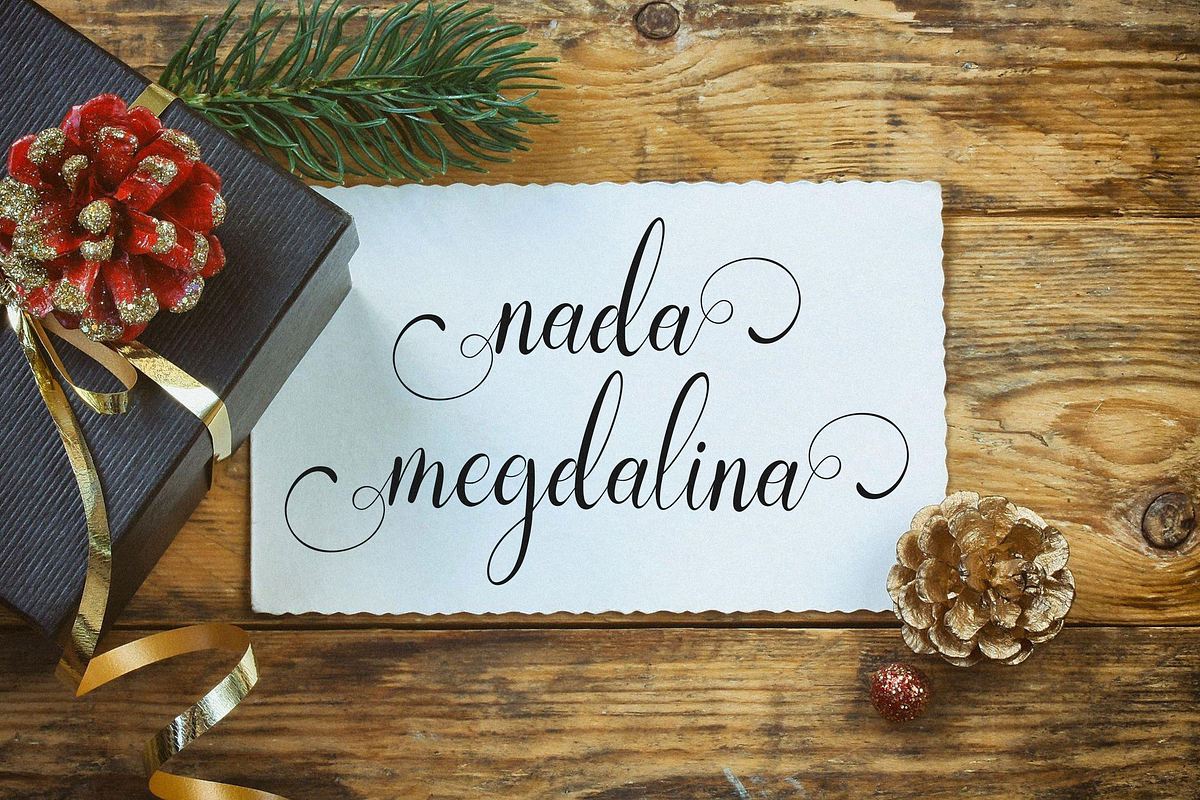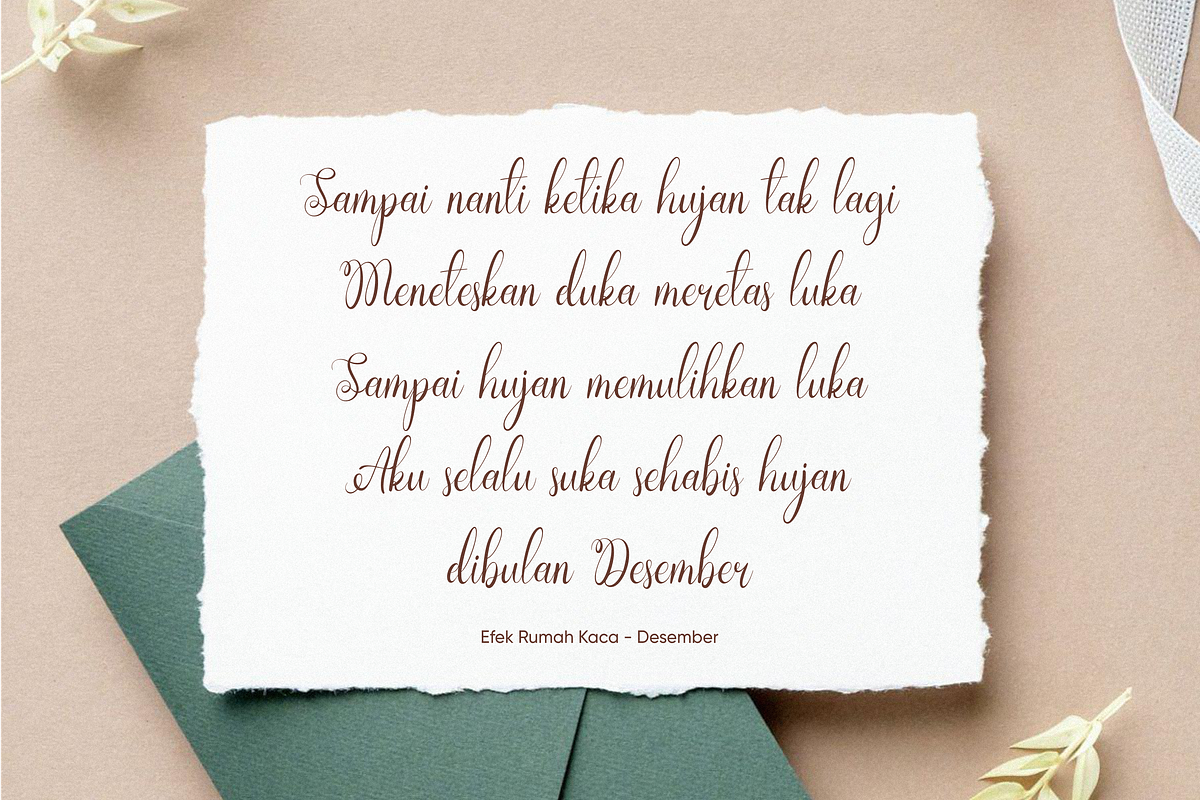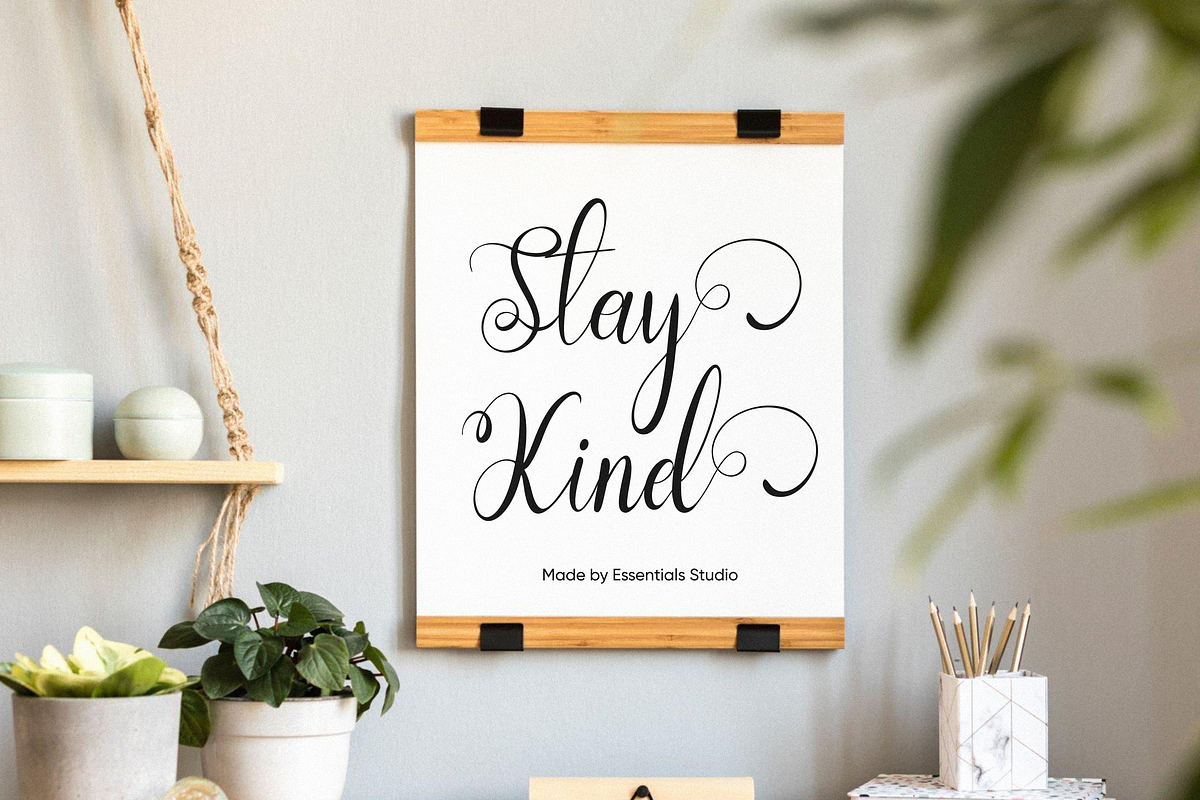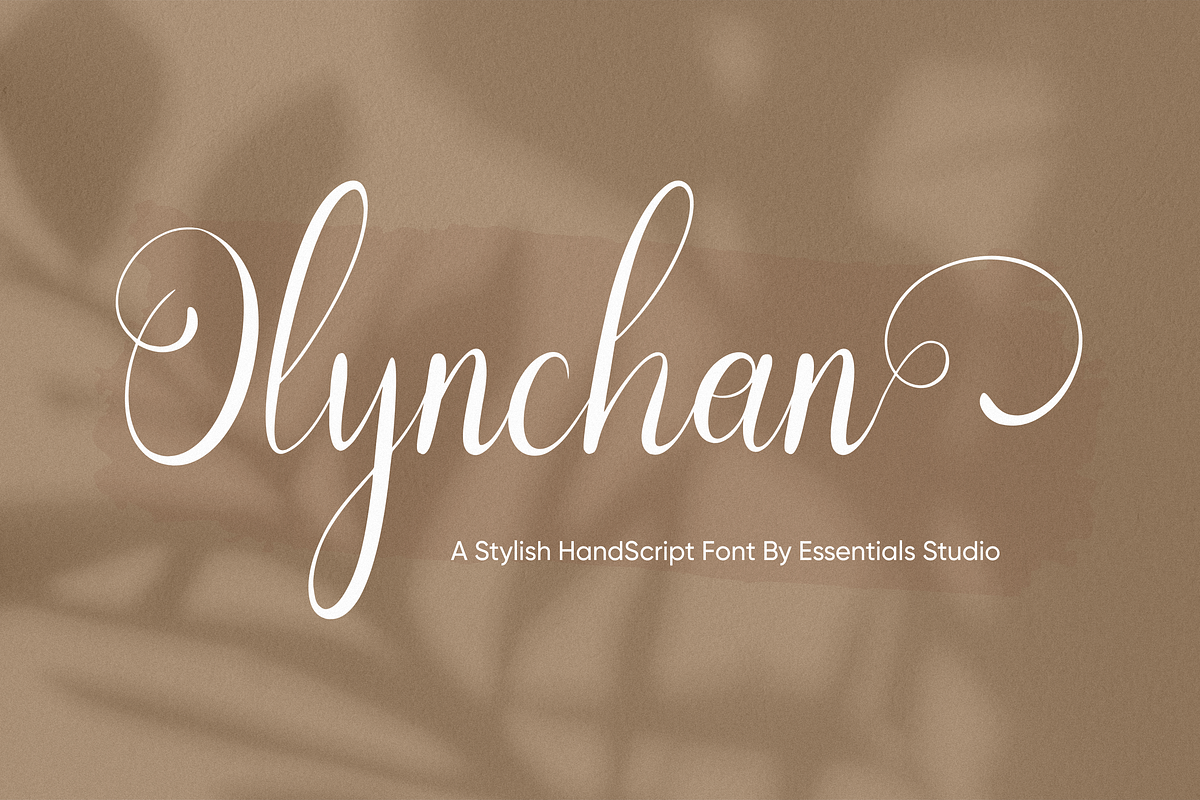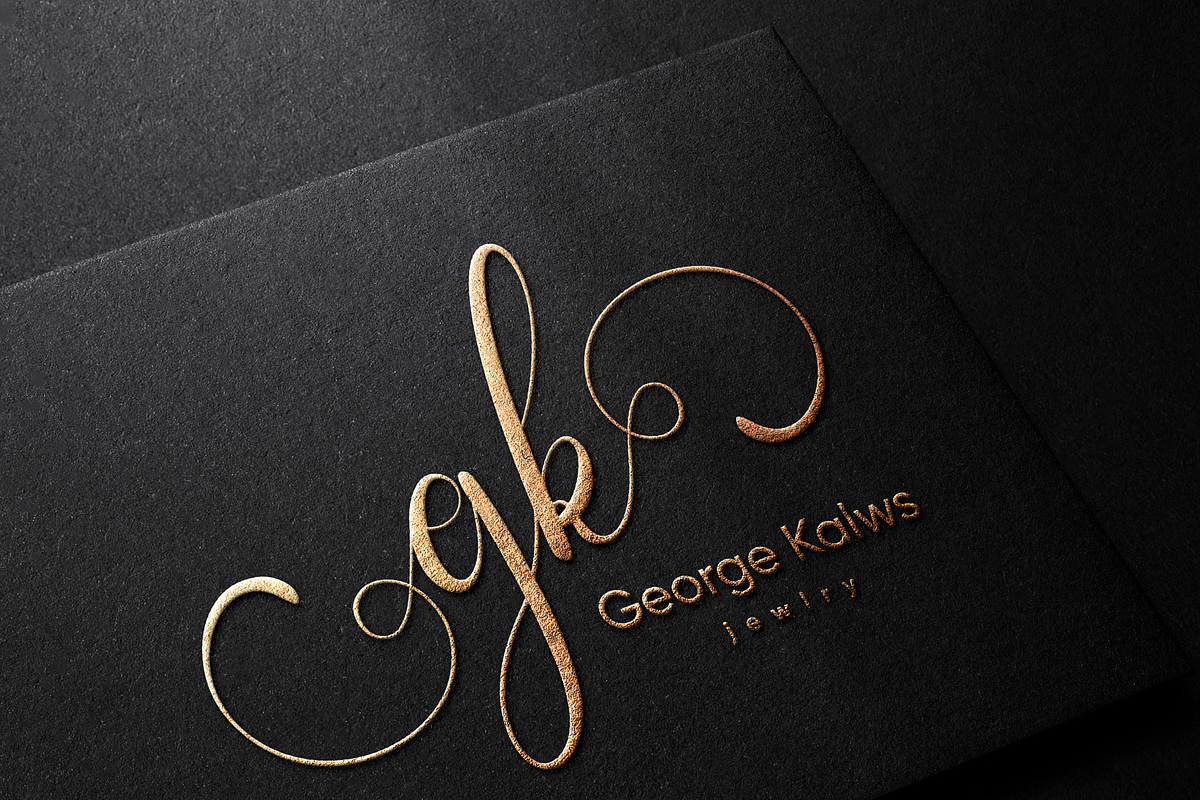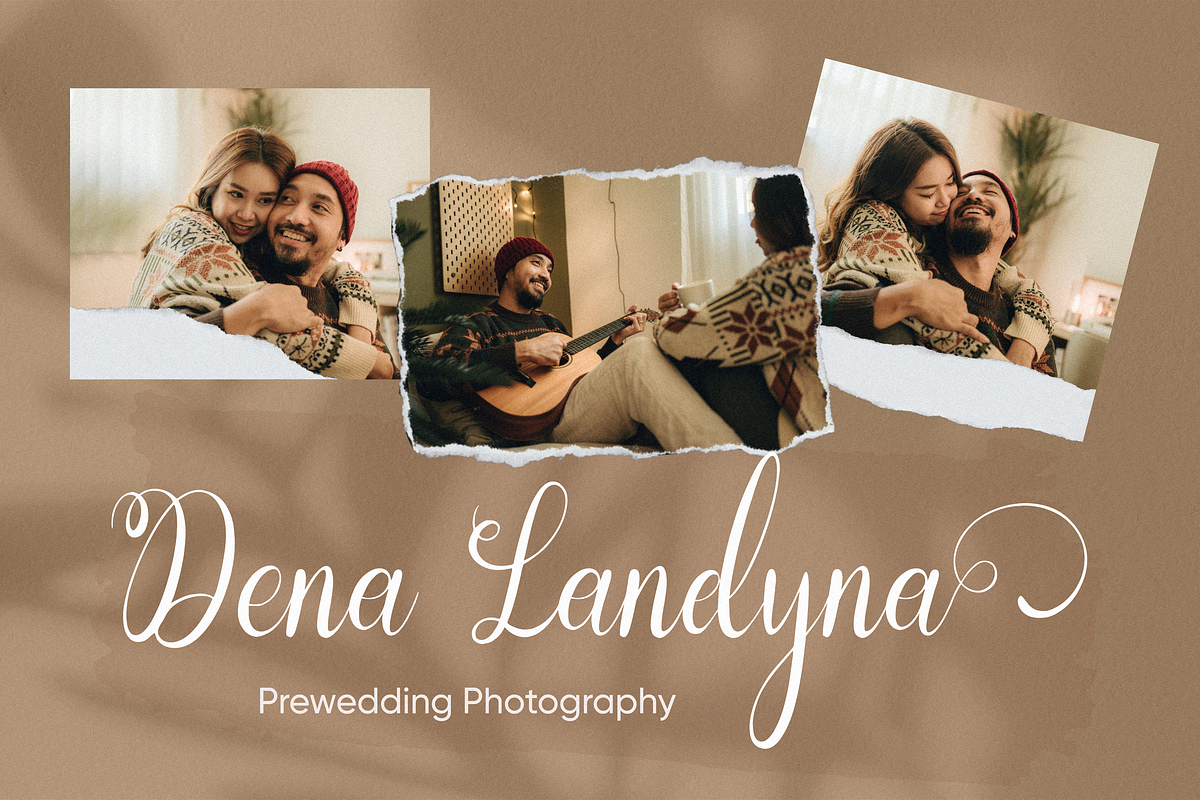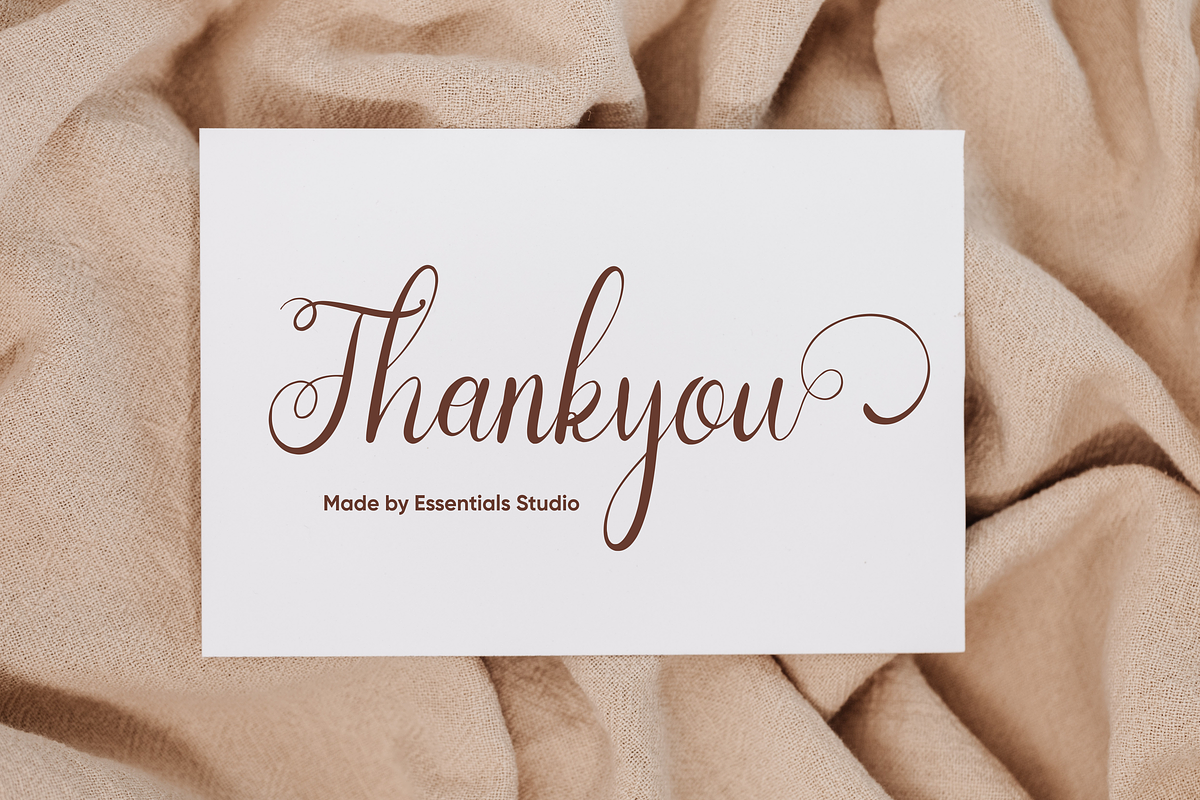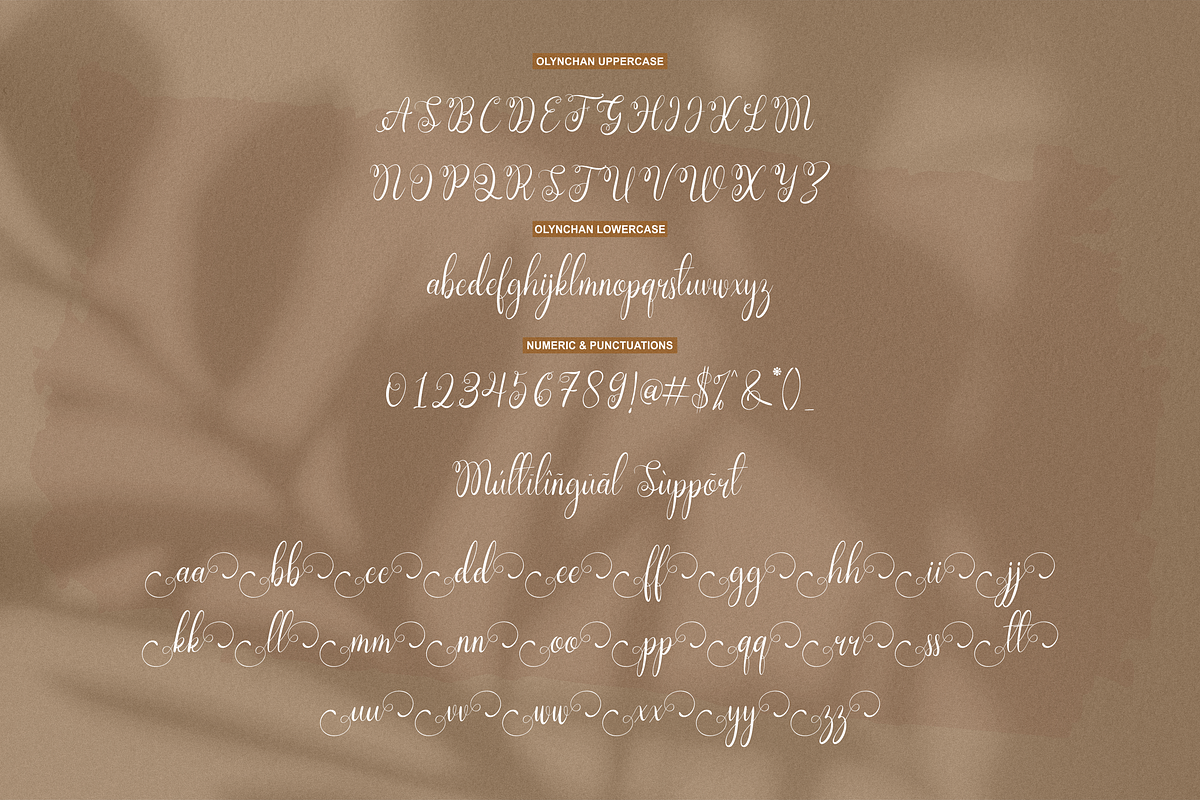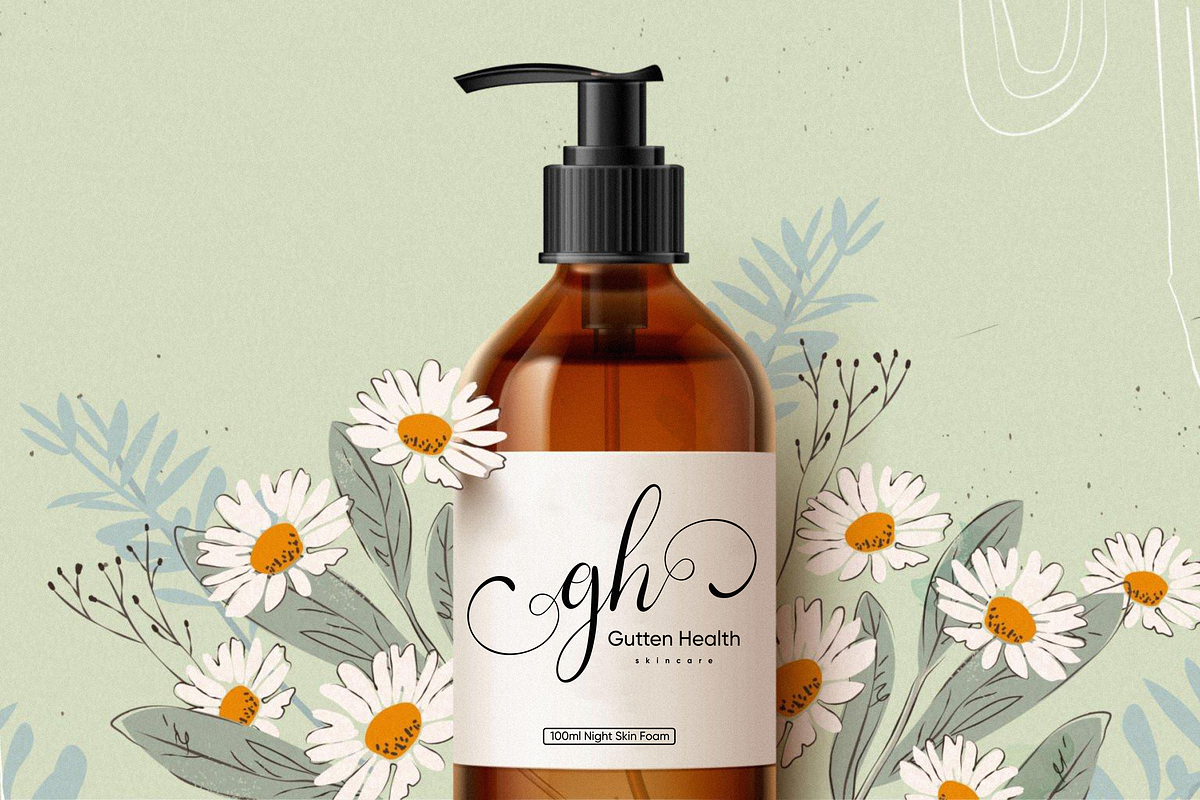
Olynchan
Proudly Present, Olynchan
Olynchan Is a Stylish Script Font With Swash and Ligature More Than 50 Stylish Alternate
Olynchan is perfect for product packaging, branding project, megazine, social media, wedding, or just used to express words above the background.